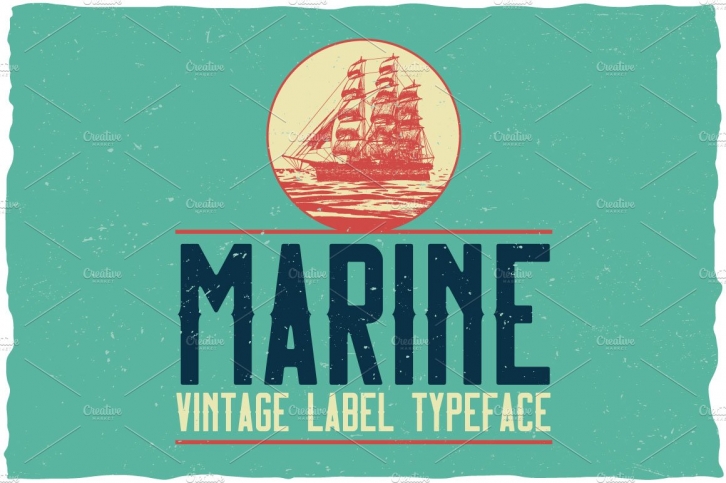
Here is a classic look label typeface named "Vintage Marine". It's made in vintage label style. Font is perfect for any labels design.
- 3 styles of font, named Vintage Marine Regular, Vintage Marine Aged and Vintage Marine Special.